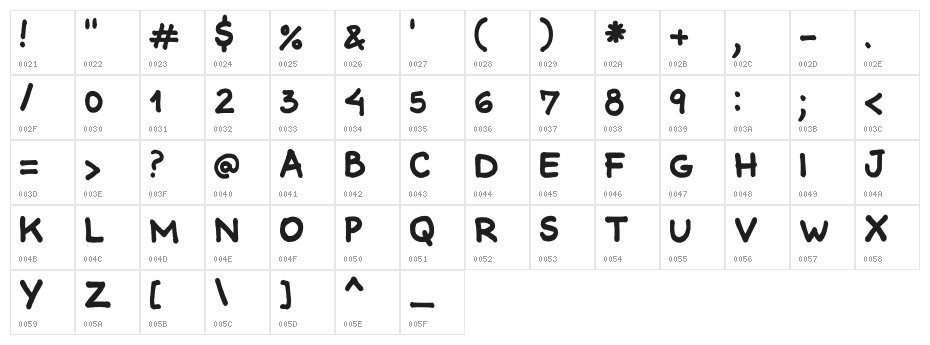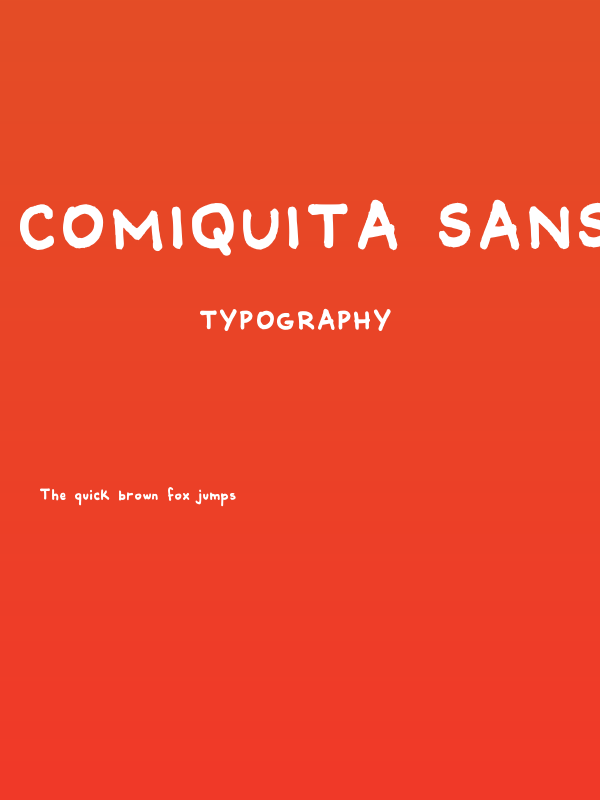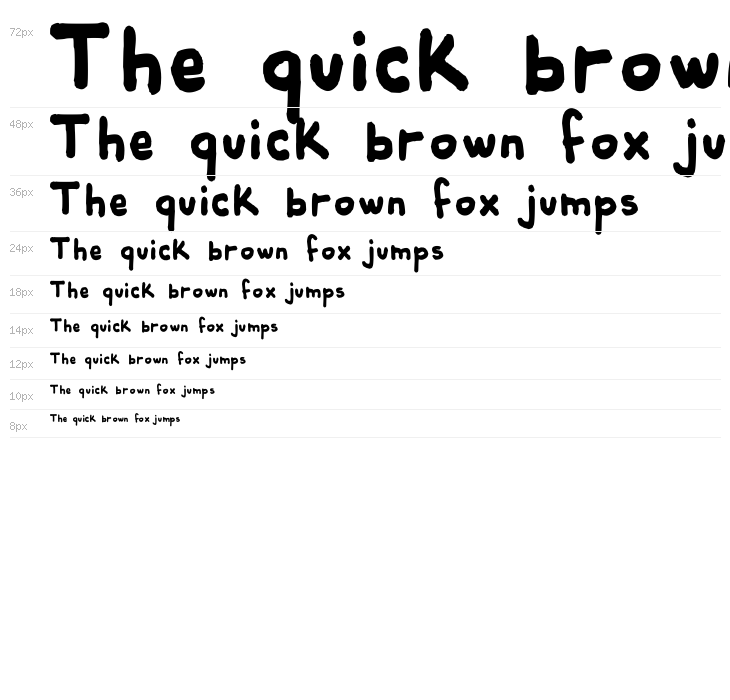
Comiquita Sans Font
Comiquita Sans Description
This playful and whimsical font features a hand-drawn aesthetic with rounded, irregular edges that give it a casual and friendly appearance. The letters are bold and slightly uneven, reminiscent of comic book lettering, which adds a sense of fun and informality. The uppercase and lowercase characters maintain a consistent style, with a slightly exaggerated height that enhances readability. The numbers and special characters follow the same playful design, making the font versatile for various creative applications. Its unique style makes it suitable for projects that aim to convey a lighthearted and approachable tone.
| Proposed Projects | Ideal for comic books, children's books, playful branding, and casual invitations. |